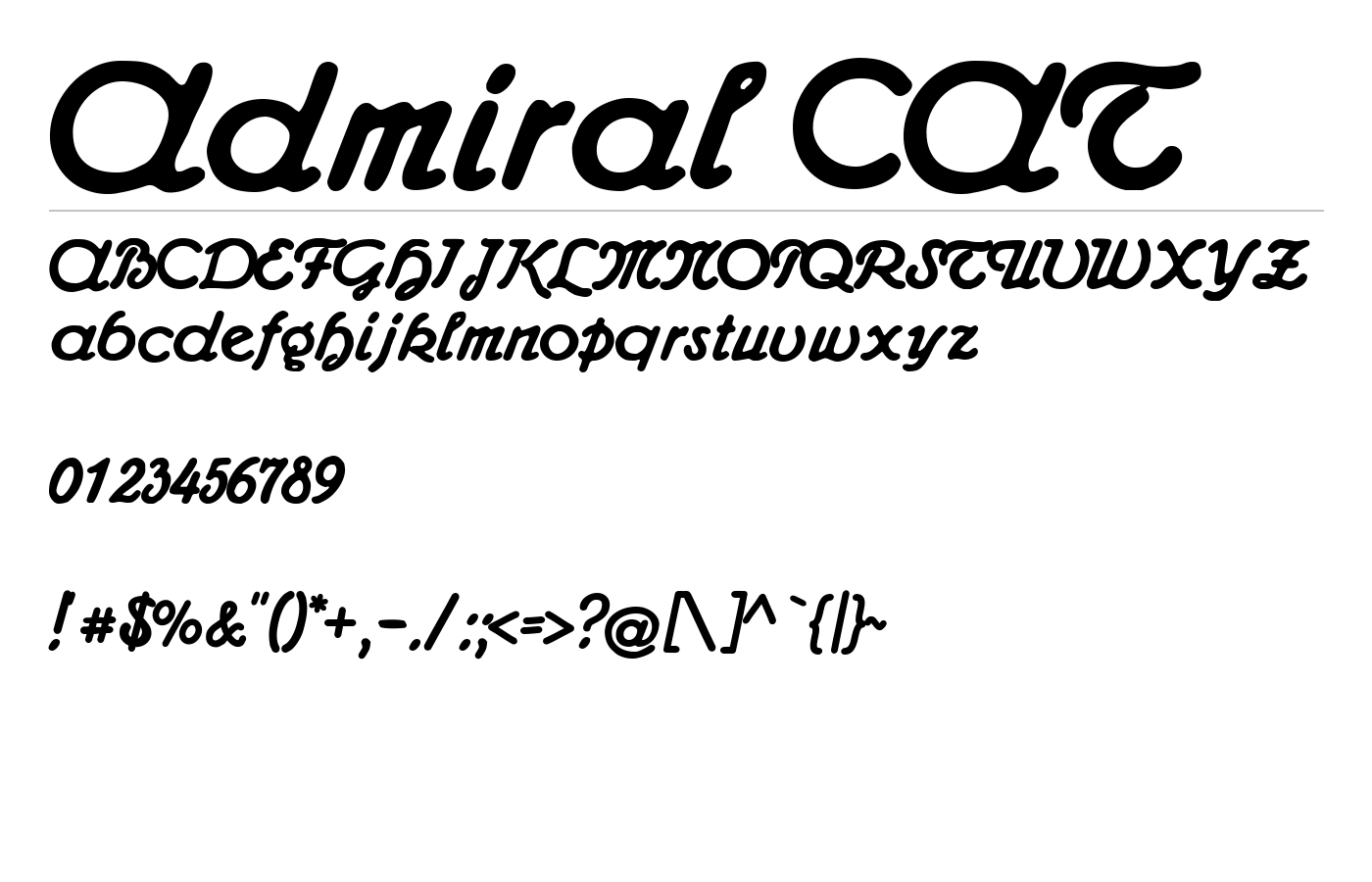
Admiral CAT is a playful and charming script font with a bold weight and moderate contrast that gives it a friendly, approachable feel. Its smooth, rounded shapes and distinctive, flowing letterforms create a lively personality perfect for creative branding, packaging, and eye-catching headlines. This font works well where a fun, vintage-inspired style is desired, adding warmth and character to any design.
Admiral CAT Font
About Admiral CAT Font
| Font family | Admiral CAT Font |
| Designer | Hausschrift Wilhelm Woelmers Schriftgießerei |